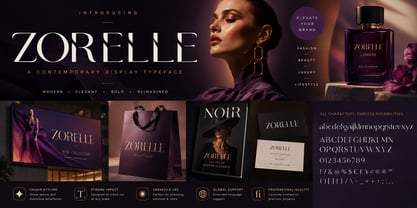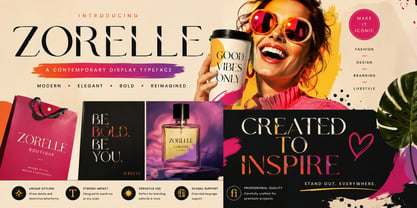
Zorell
por Zefrar
La familia tipográfica Zorell fue diseñada por Hamid Azzafrar y publicada por Zefrar. Zorell contiene 1 estilos. Más información sobre esta familia
Zorell is a distinctive contemporary display typeface that blends refined elegance with bold, artistic expression. Its unique letterforms combine flowing curves, sharp cuts, and dramatic contrasts to create a striking visual identity. Designed to stand out, Zorelle is ideal for logos, fashion, editorial design, branding, packaging, posters, and creative headlines where personality and sophistication matter.
Diseñadores: Hamid Azzafrar
Fundición: Zefrar